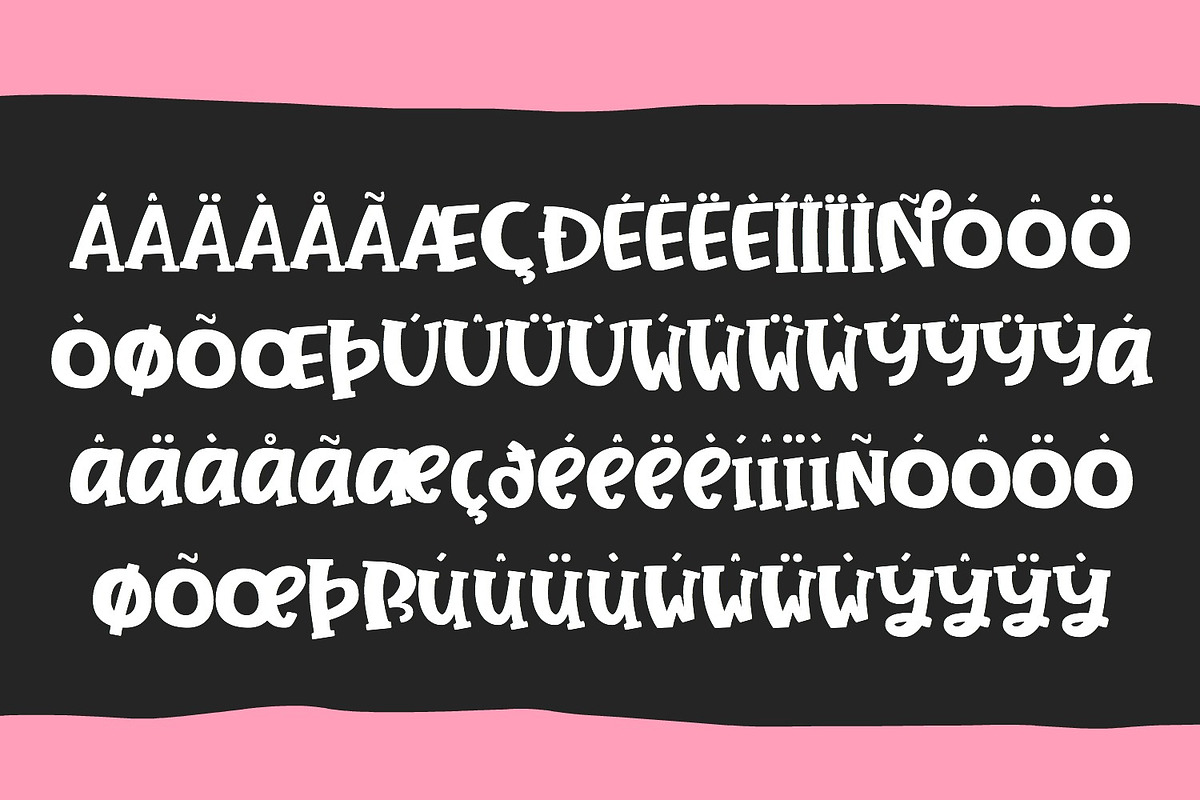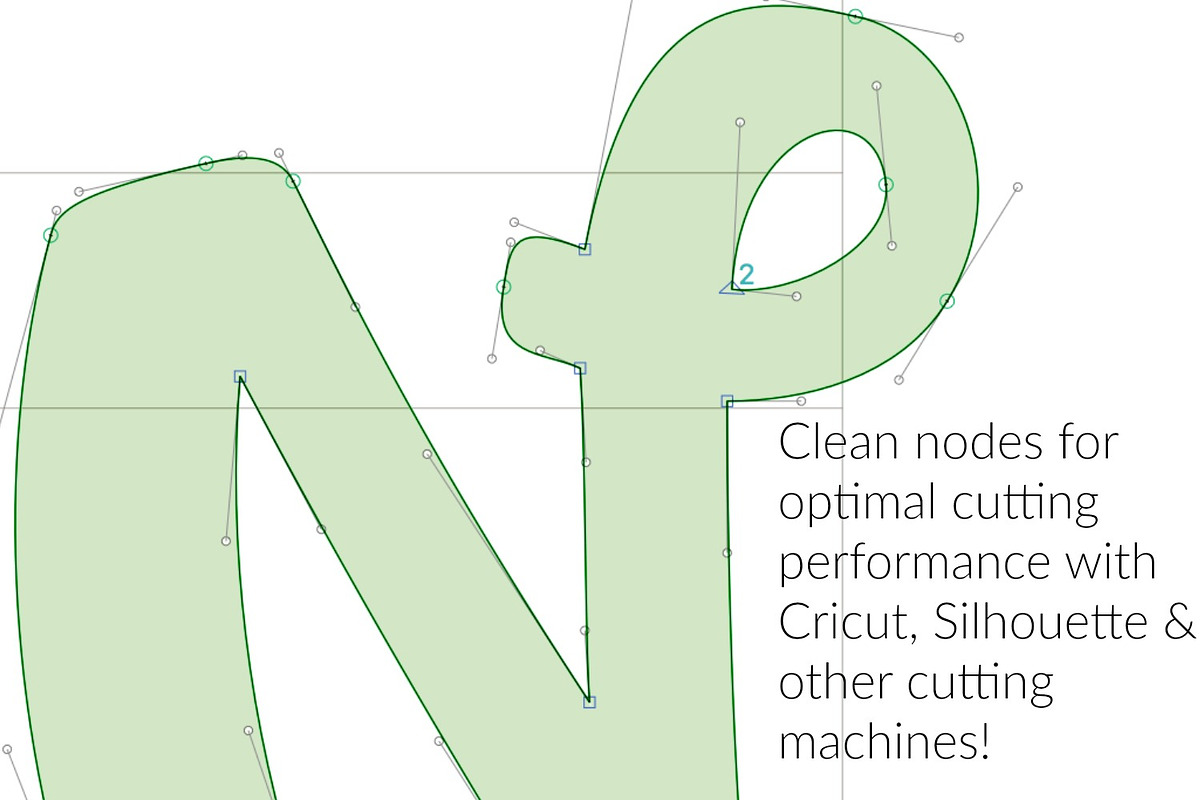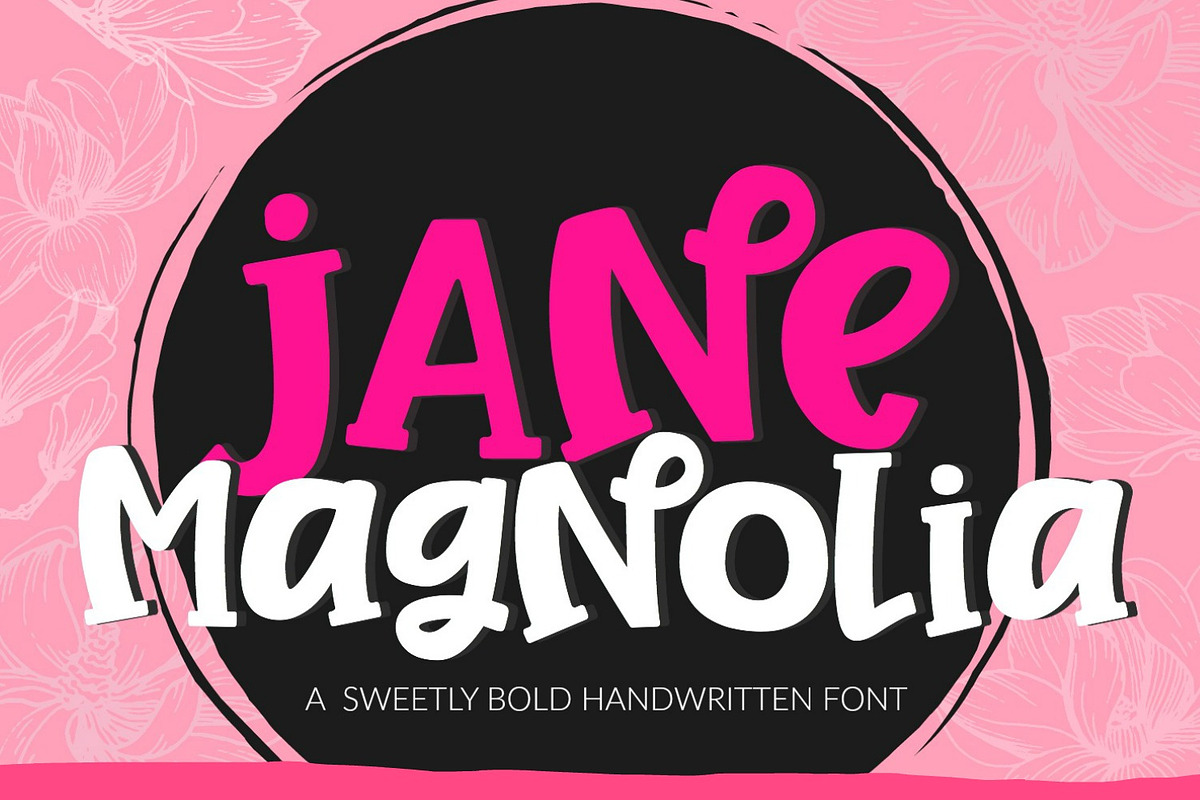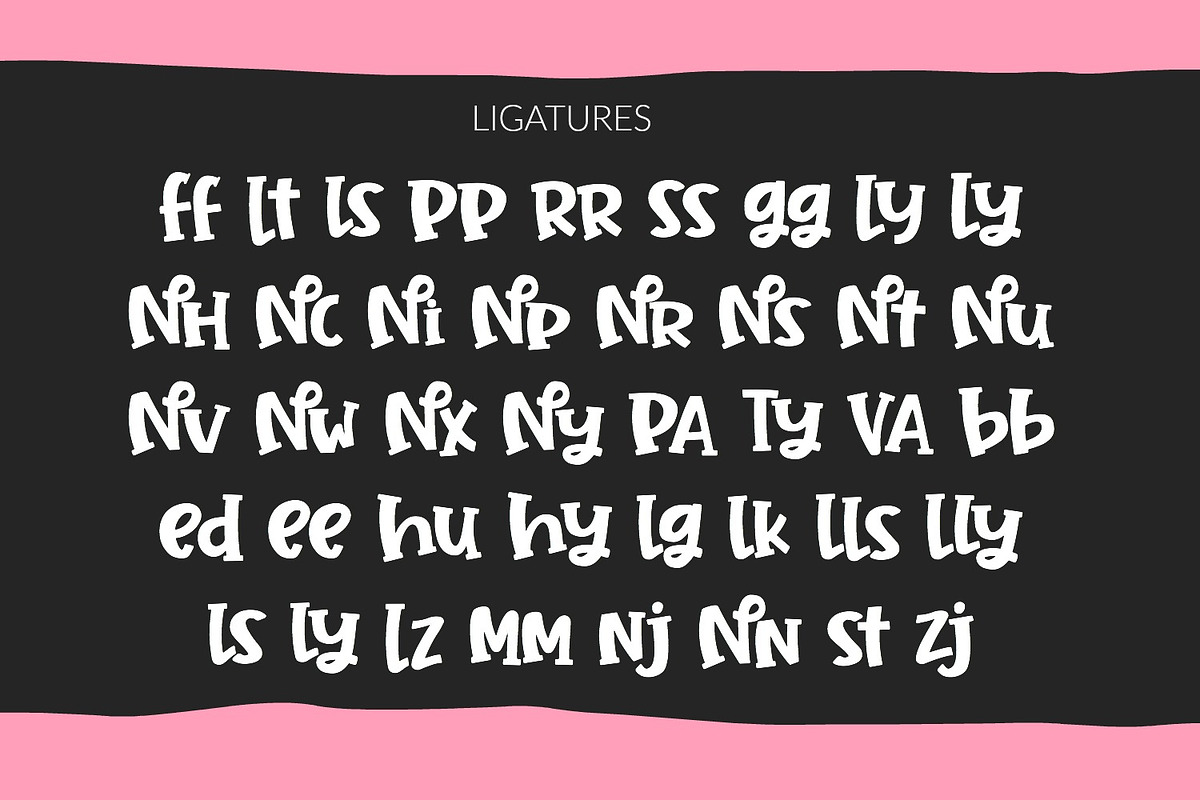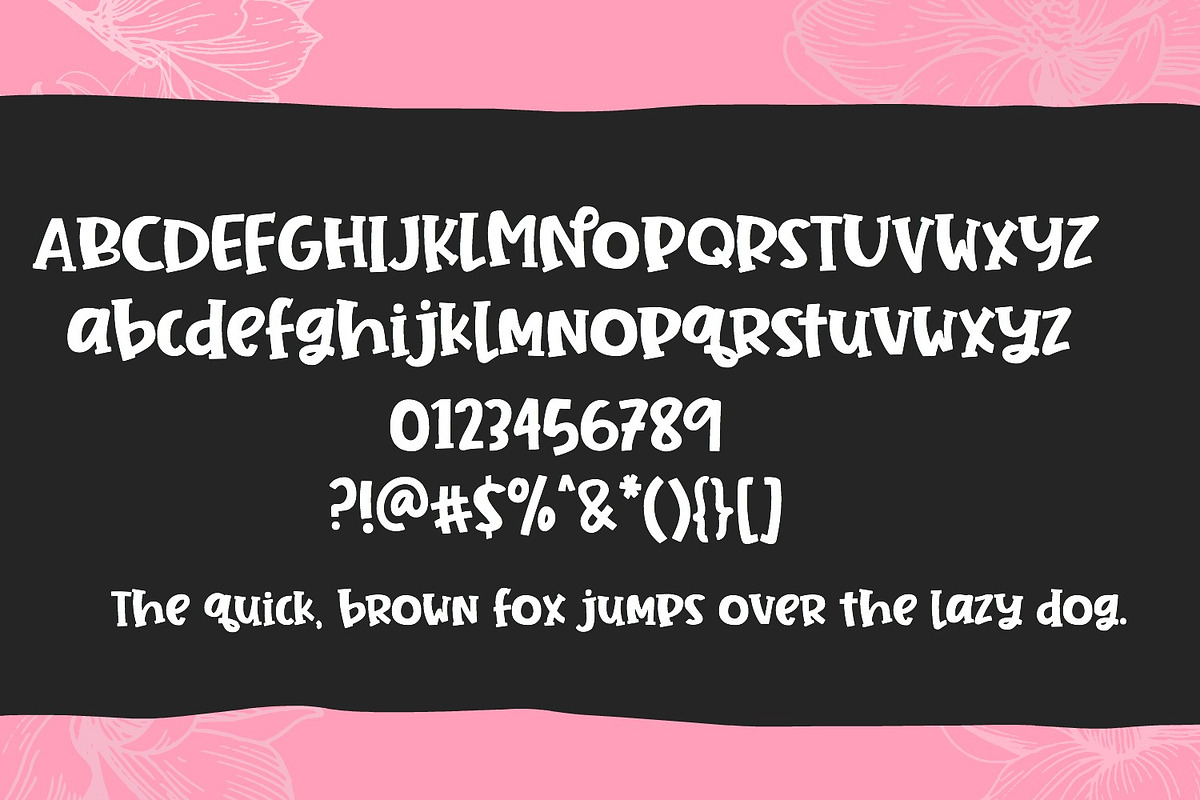
Jane Magnolia Handwritten Font
Introducing Jane Magnolia! This bold, chunky handwritten font is perfect for fun, youthful design projects!
Basic Latin (English) and most Western European languages are supported.
Jane Magnolia Handwritten Font by Sabrina Schleiger Design fits naturally into Branding, posters, packaging, typography.